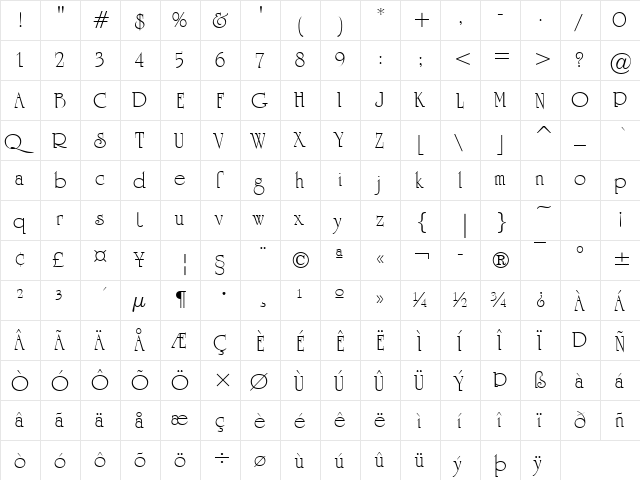
Opera Regular
Design Context for Opera Typeface
Opera takes a measured approach to typography — its balanced proportions and neutral character make it a reliable workhorse for both digital and print work.